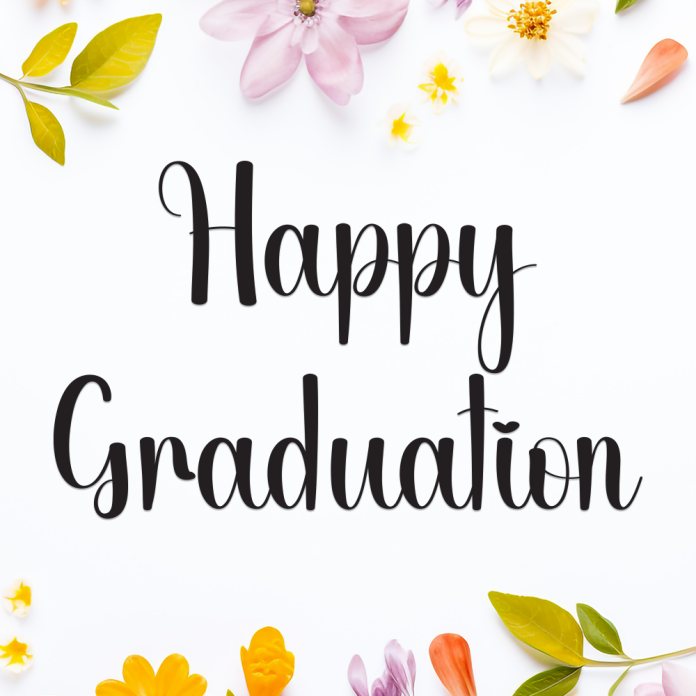
Happy Graduation is a cheerful and celebratory handwriting font, perfect for marking special milestones and joyous occasions. Its playful strokes and lively flow bring an uplifting vibe to your designs.
Fun and expressive handwriting style
Ideal for graduation cards, certificates, invitations, and festive projects
Smooth yet dynamic letter shapes
Celebrate achievements in style with the joyful charm of Happy Graduation.